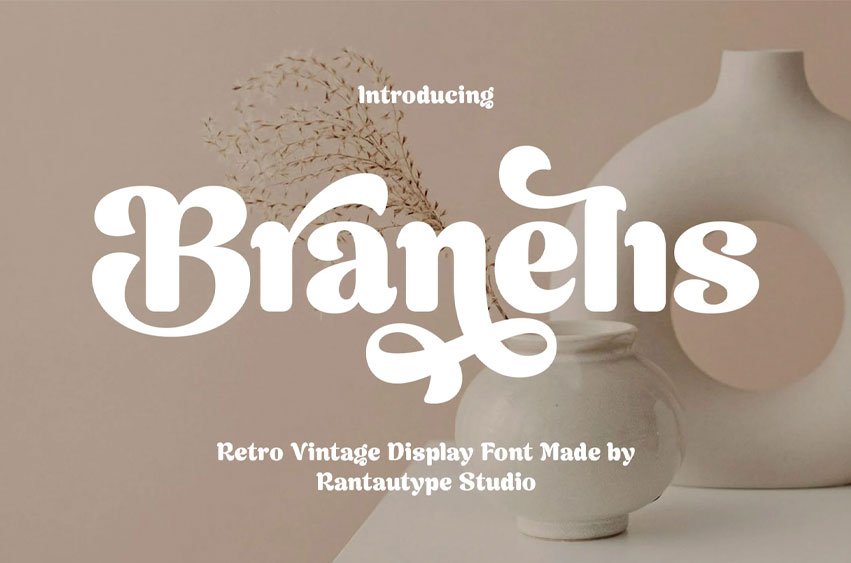
Branelis Font is typeface that blends characteristics of classic fonts with nostalgic design elements from past decades, particularly from the 1940s to the 1980s. Branelis come with stylish alternate to make your project stand out.
Branelis is a perfect choice for any creative endeavor, chic lifestyle design such as logotype, advertisements, watermark on photography, stationery, branding project, display and magazine, invitation, corporate brand, product design, label, business project, and many other projects with an elegant touch.